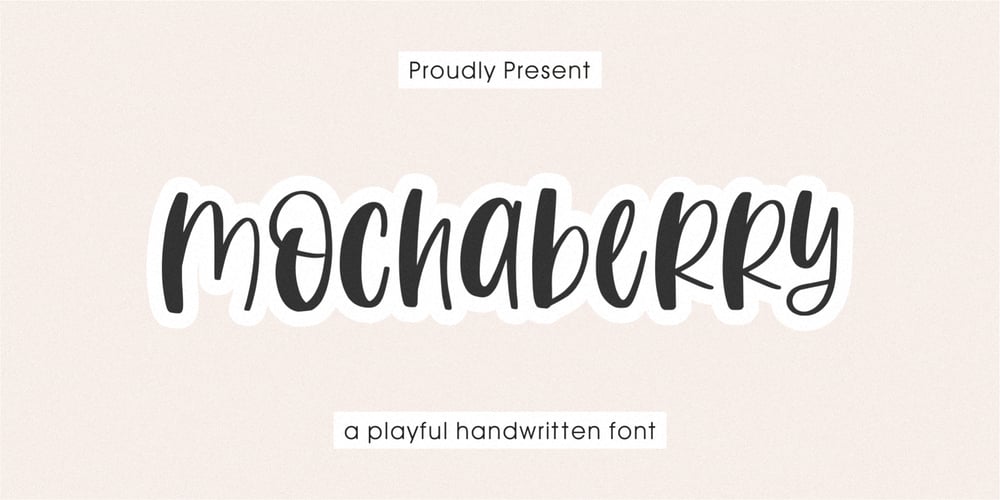
Mochaberry
Mochaberry font
Mochaberry Font Family was designed by Suhery Anto, Odies Dwi Yudhistira and published by Qwrtype Foundry. Mochaberry contains 1 styles and family package options. Proudly Present, Mochaberry. Mochaberry is a Playful Display FontMochaberry is perfect for product packaging, branding project, magazine, social media, wedding, or just used to express words above the background.